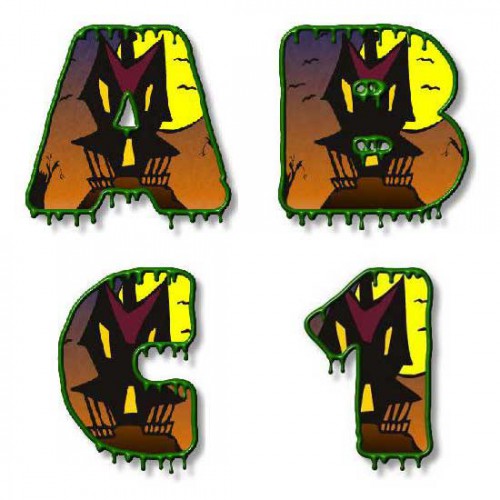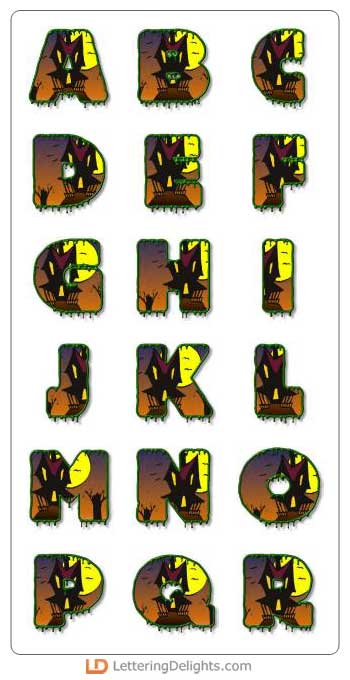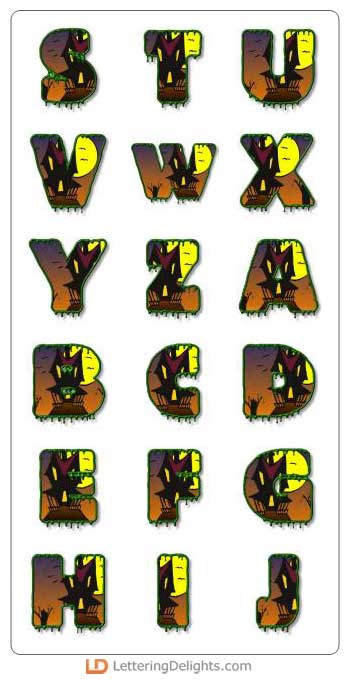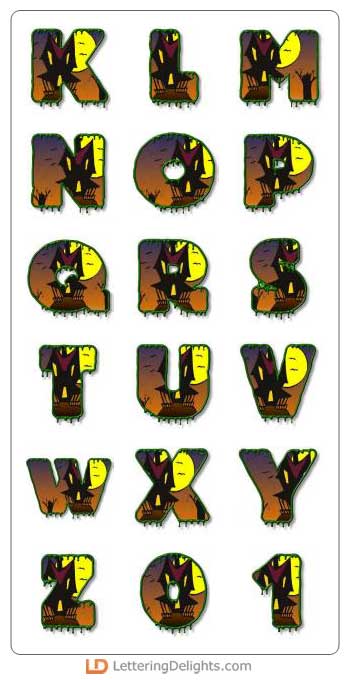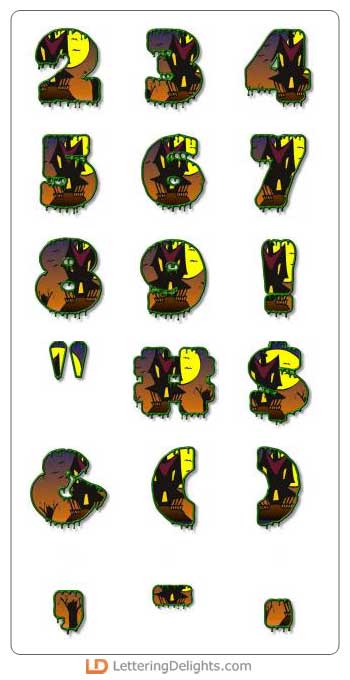
Spooky - AL
It was a scary night, the moon was full ..... boo! This alphabet represents this theme and it is perfect for that Halloween scrapbook layout or invitation.